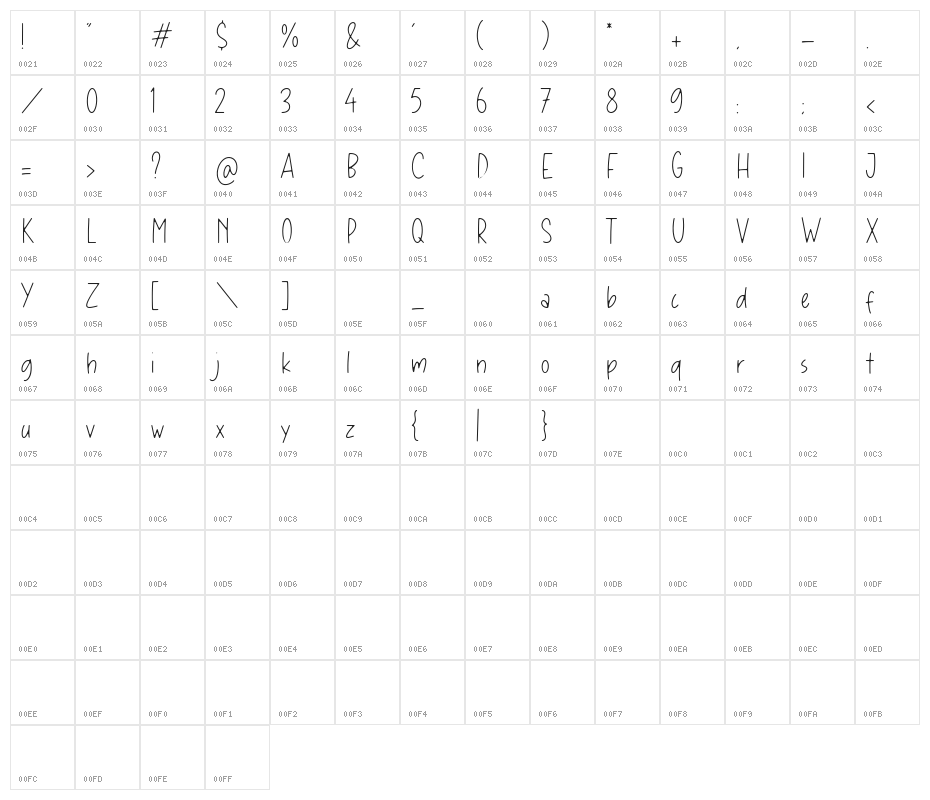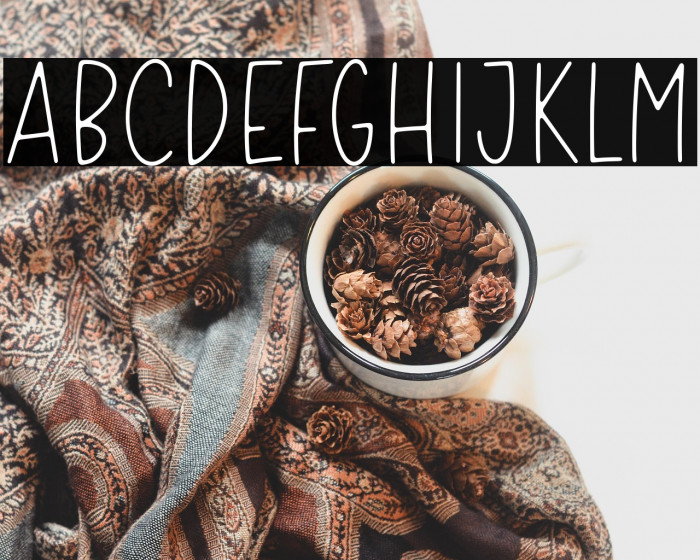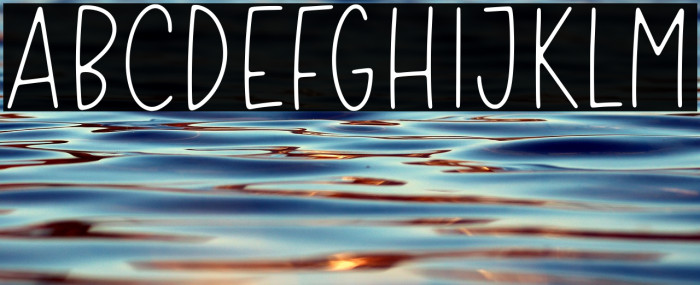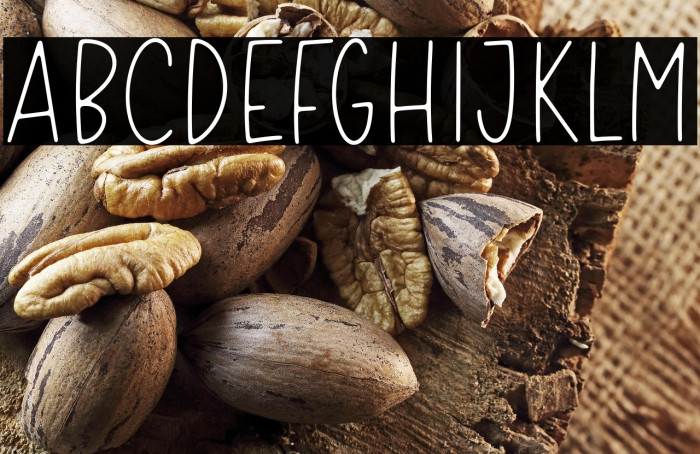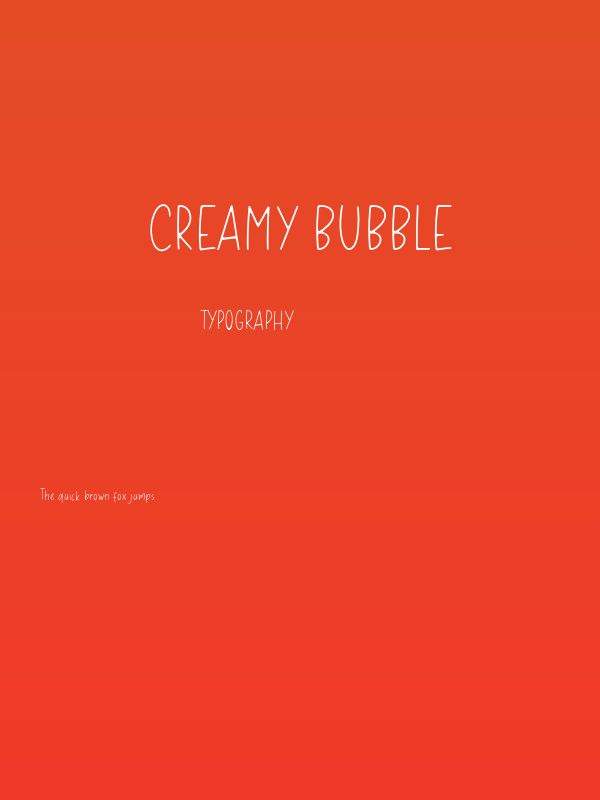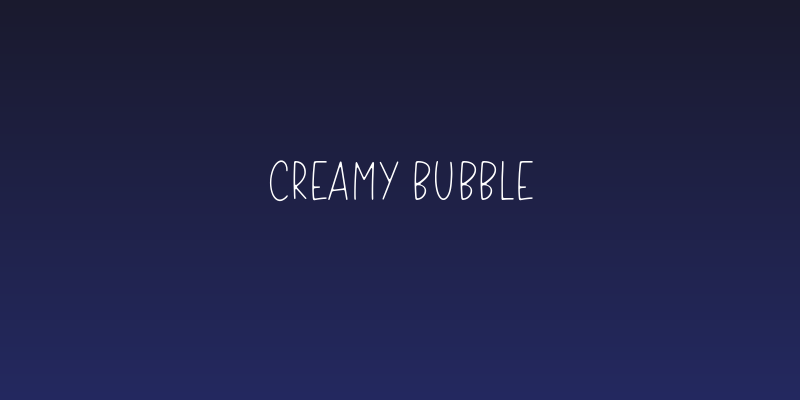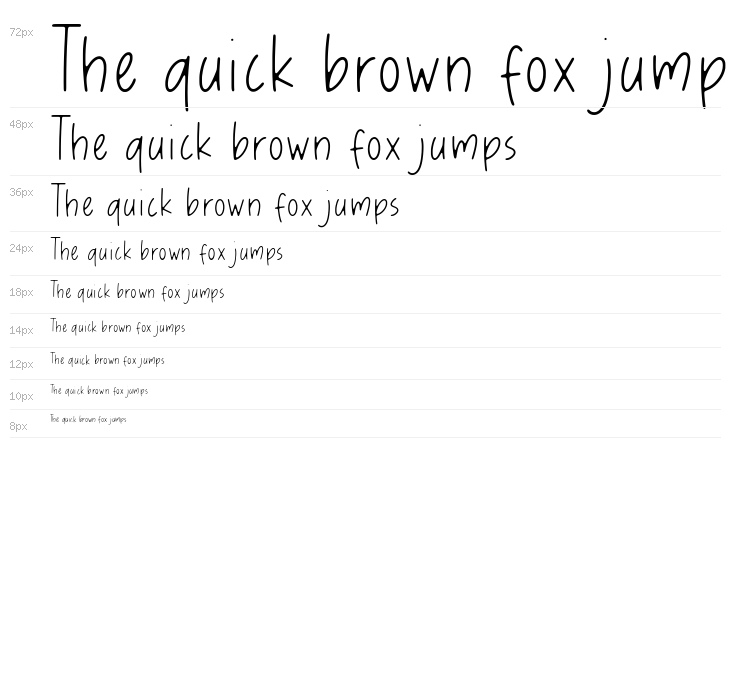
Creamy Bubble Font
A playful and informal handwritten font with a casual, friendly appearance. The letters are slightly irregular, adding to the charm and personality.
| Proposed Projects | Greeting cards, children's books, casual branding. |